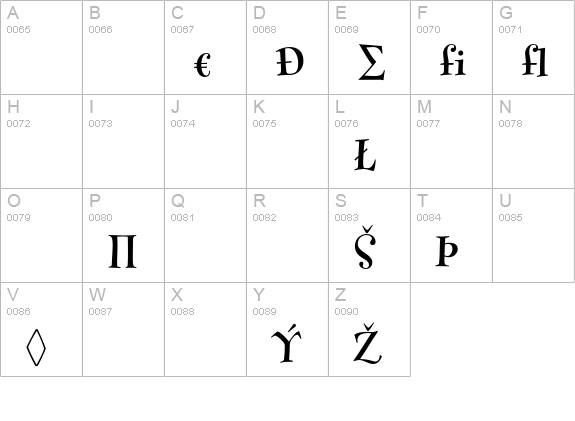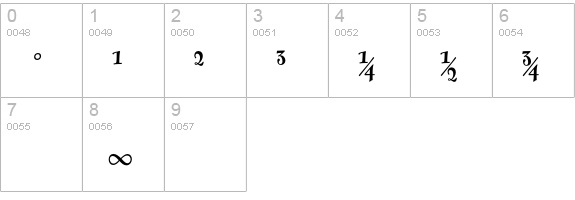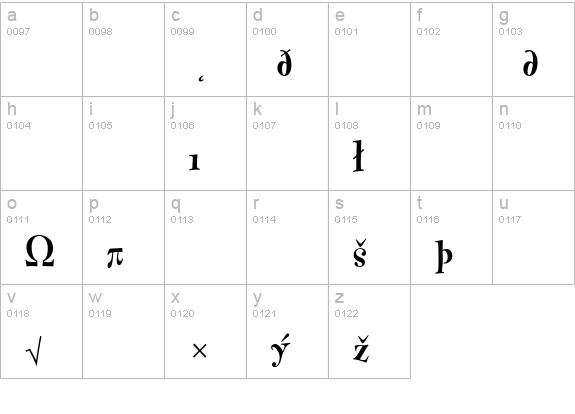
FontesqueText-BoldExpert is a bold and stylish font that exudes confidence and professionalism. With its sleek lines and elegant curves, this font is perfect for making a statement in any design project. Whether you're creating a logo, poster, or website, FontesqueText-BoldExpert will grab attention and leave a lasting impression. The best part about FontesqueText-BoldExpert is that it is available for free download at FontsMarket.com. This means you can easily access this high-quality font and incorporate it into your work without any cost. Don't miss out on the opportunity to enhance your designs with the modern and sophisticated look of FontesqueText-BoldExpert. Download it now and take your projects to the next level!